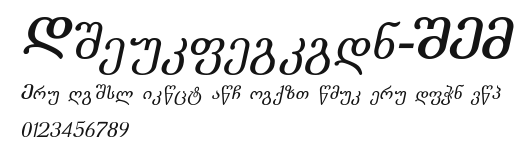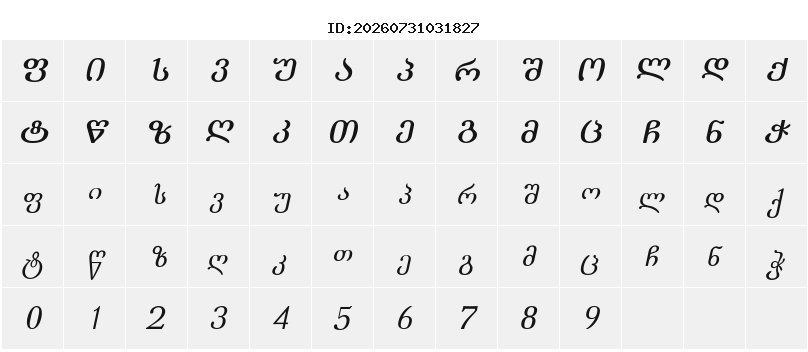
Literaturuly-ITV Preview
• Font Name: Literaturuly-ITV
• Full Font Name: Literaturuly-ITV Italic
About Literaturuly-ITV.ttf
Literaturuly-ITV.ttf is a modern, elegant sans-serif font designed for ultimate readability and visual harmony. Perfect for branding, headlines, web design, and print materials.